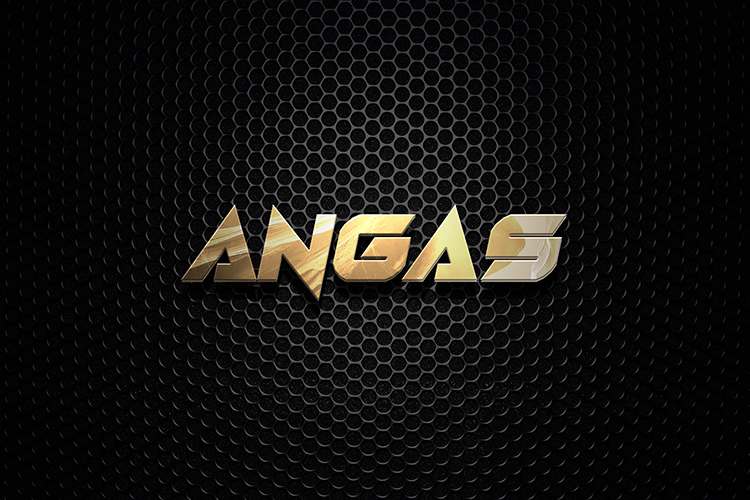
Preview and download Angas Font. Created by J�son Garnica in Techno Sci-fi styles with Free for personal use license.
Angas is a cool, bold and thick lettered display font. It will look stunning on any poster, flyer or print. Use this font for your futuristic designs and explore its endless possibilities. https://www.creativefabrica.com/product/angas/ref/231632/ https://fontbundles.net/eyecone/1777942-amgas |